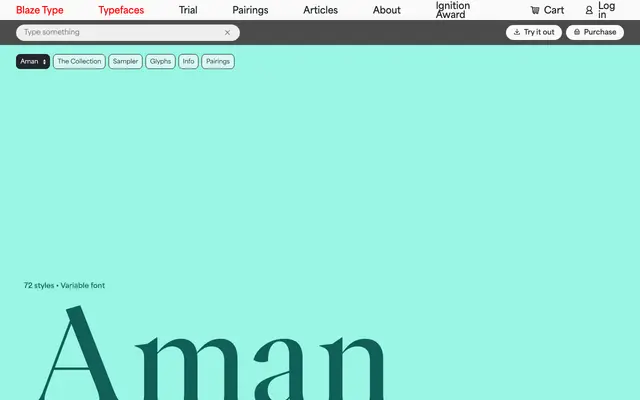
A 72-style serif collection from Blaze Type, structured across four optical sizes from Caption to Display, each available in nine weights with italics and as a variable font.
The family divides into Caption, Text, Normal and Display subfamilies, each tuned to perform at a specific size range and carrying the full weight spectrum from Thin to Black with matching italics. All four optical variants are also available as variable fonts, giving a combined 72 static styles plus variable flexibility. The structure makes it well suited to complex editorial and publishing projects that need consistent character across body text and headline settings.
Aman is a serif family structured across four optical sizes — Caption, Text, Normal and Display — each with the same weight range, a hallmark of traditional text-oriented serif design intended to perform across size-specific contexts.